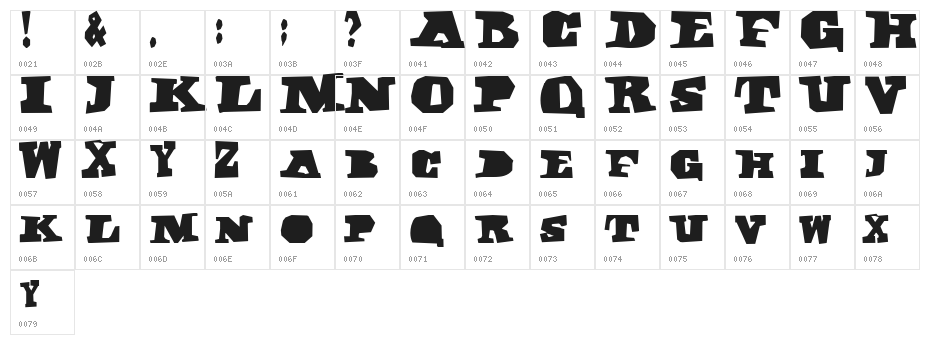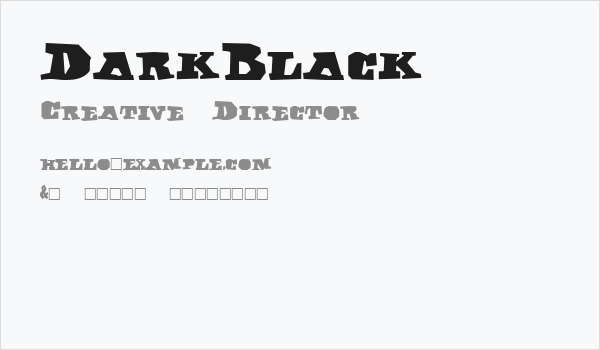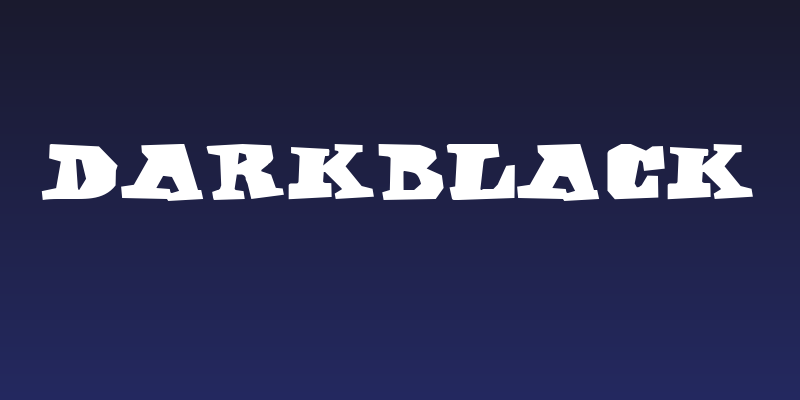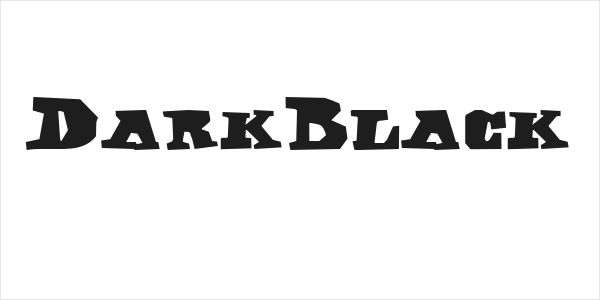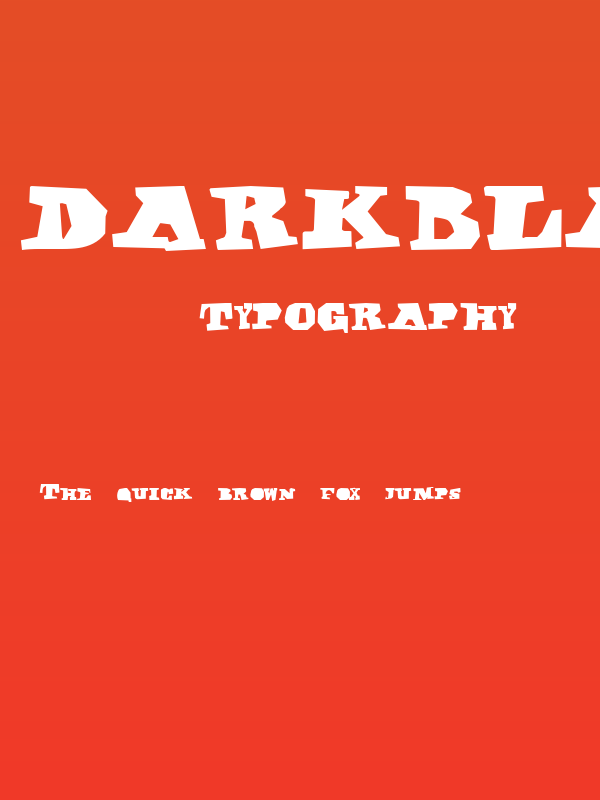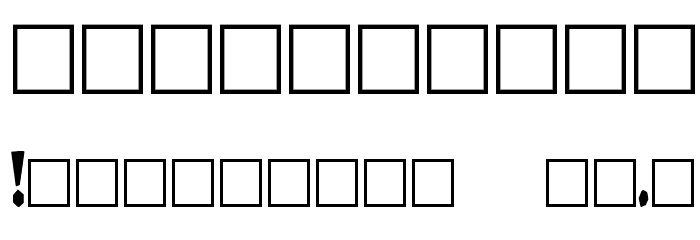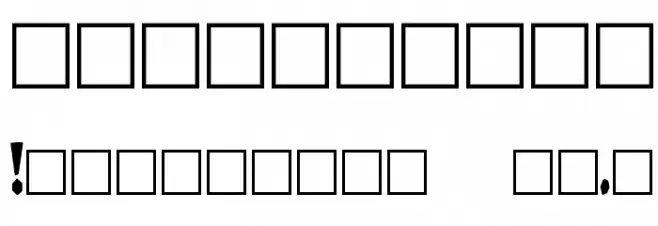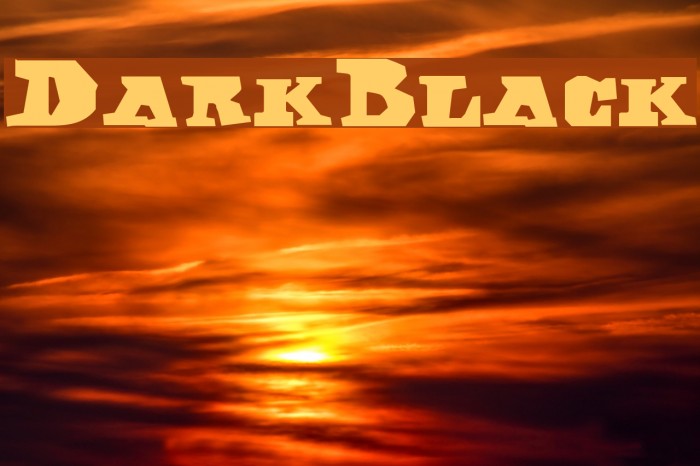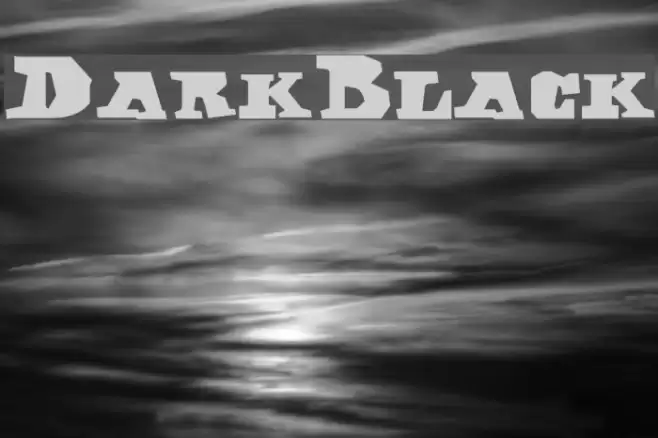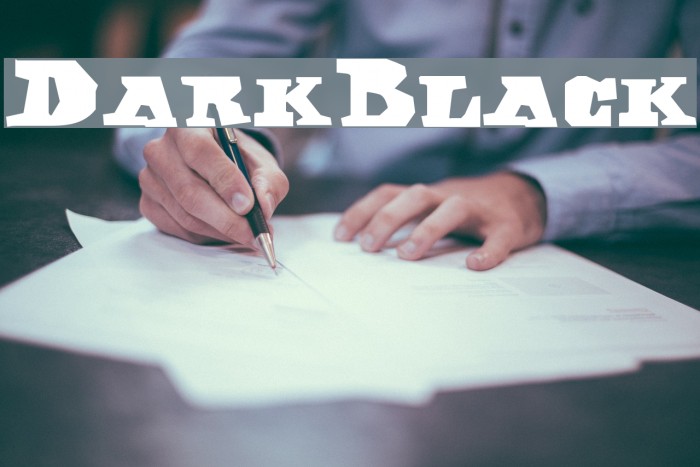
DarkBlack Font
DarkBlack Description
This font features a bold and dramatic style with a distinct, angular design. The characters are heavily stylized, with sharp edges and a blocky appearance that gives them a strong, impactful presence. The uppercase letters are particularly striking, with a uniform height and width that create a cohesive look. The lowercase letters maintain the same boldness, ensuring consistency across the font. The numbers and special characters follow the same design principles, making them easily recognizable and visually appealing. This font's unique style makes it ideal for projects that require a strong visual impact.
| Proposed Projects | Ideal for posters, logos, and headlines that require a strong visual impact. |